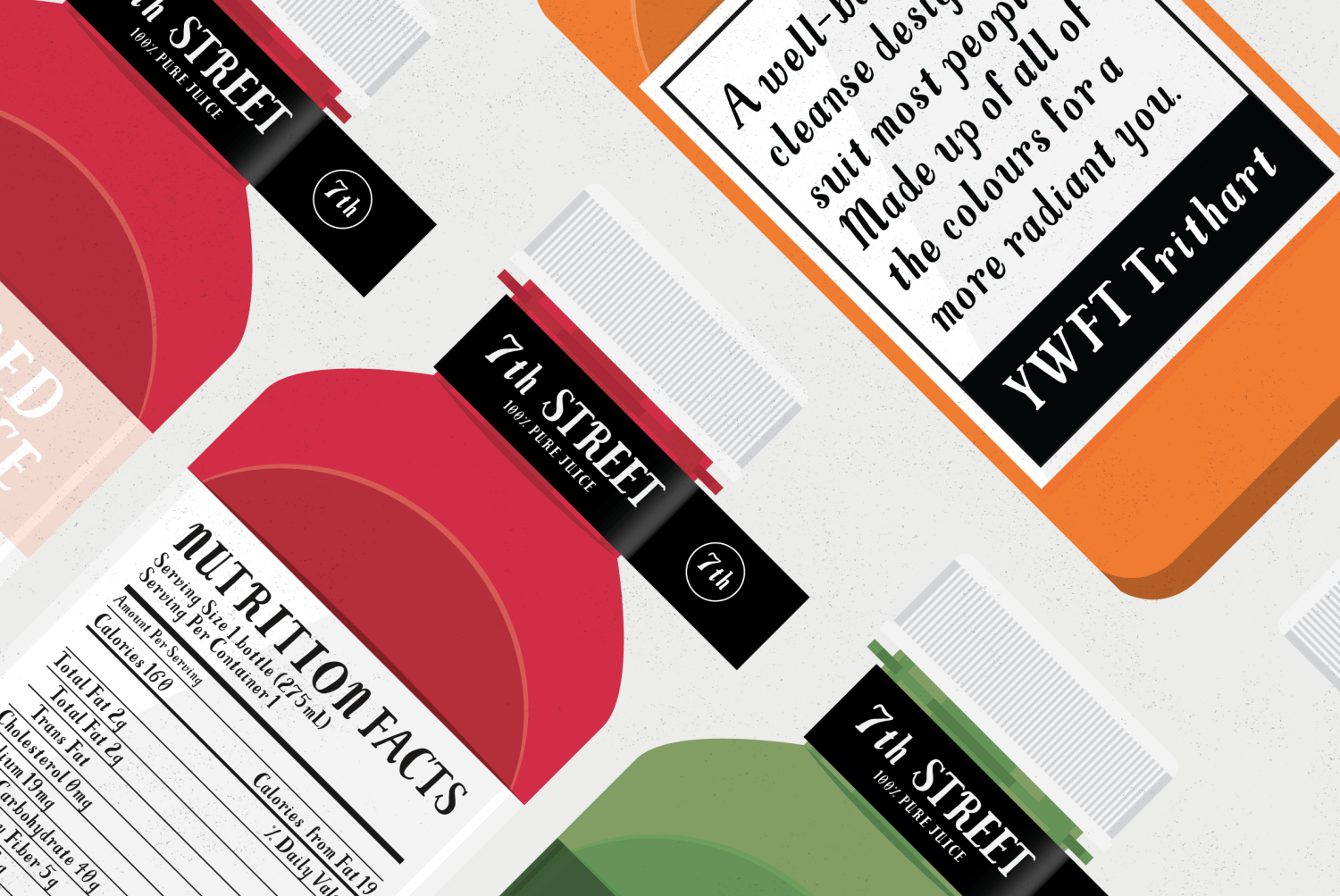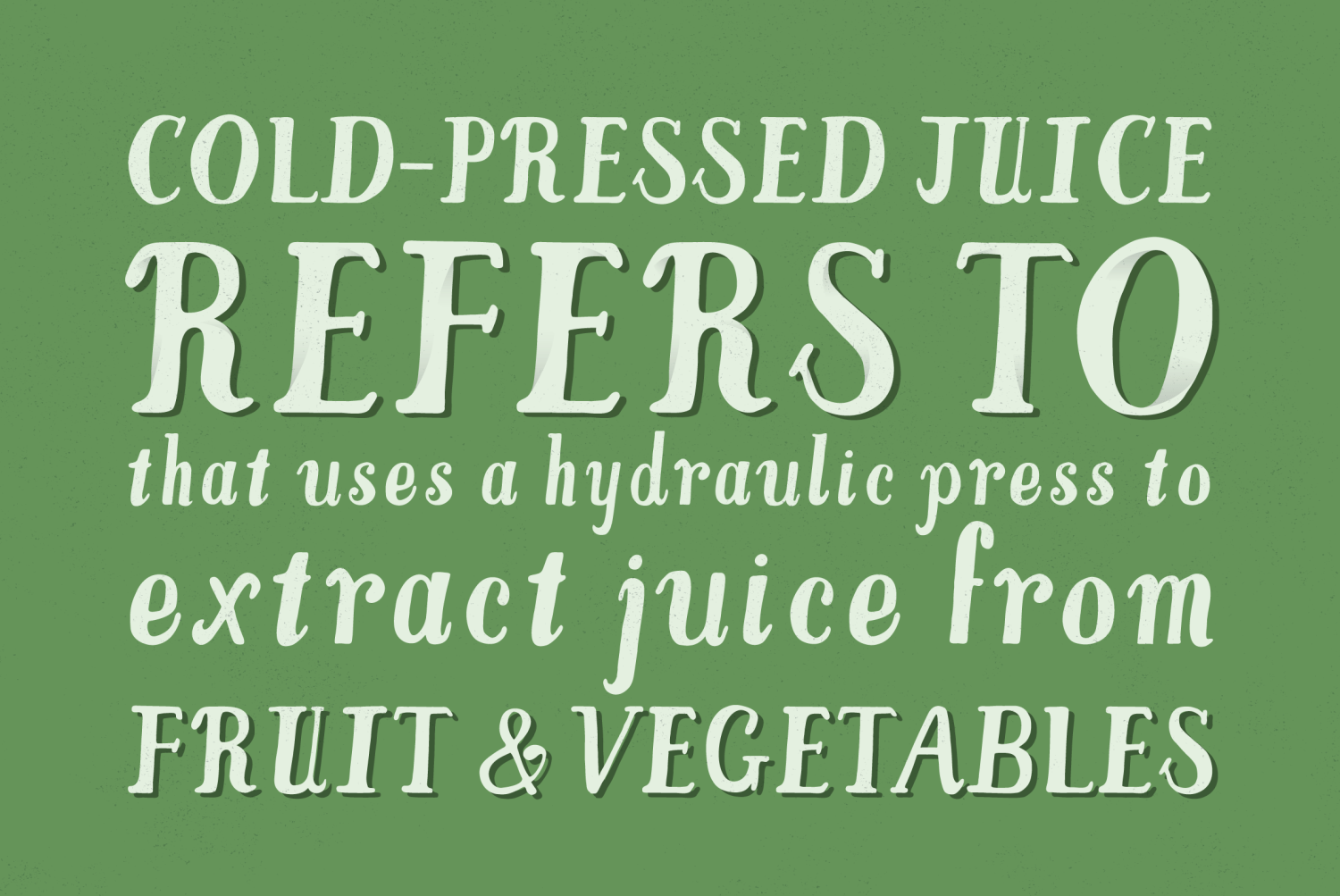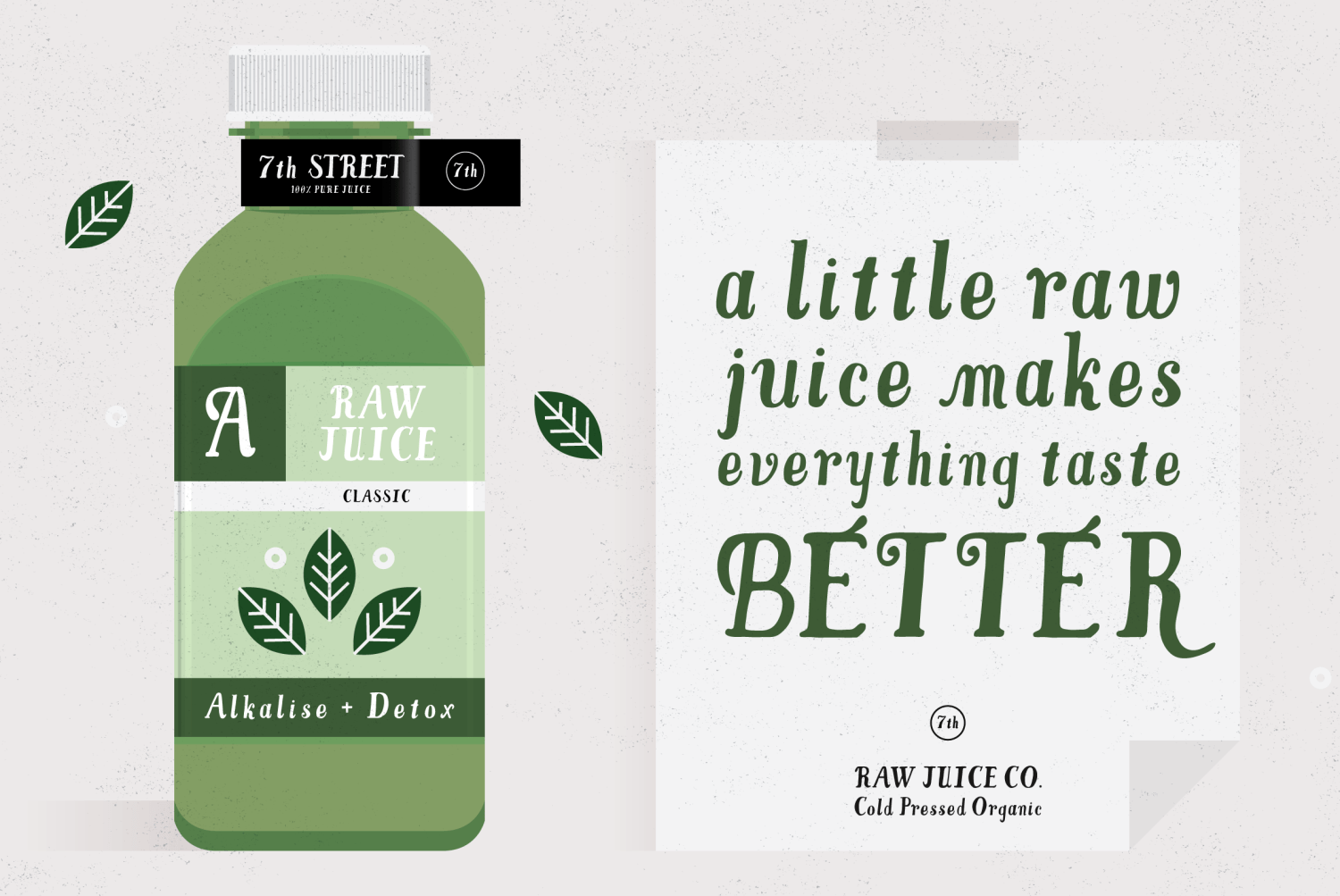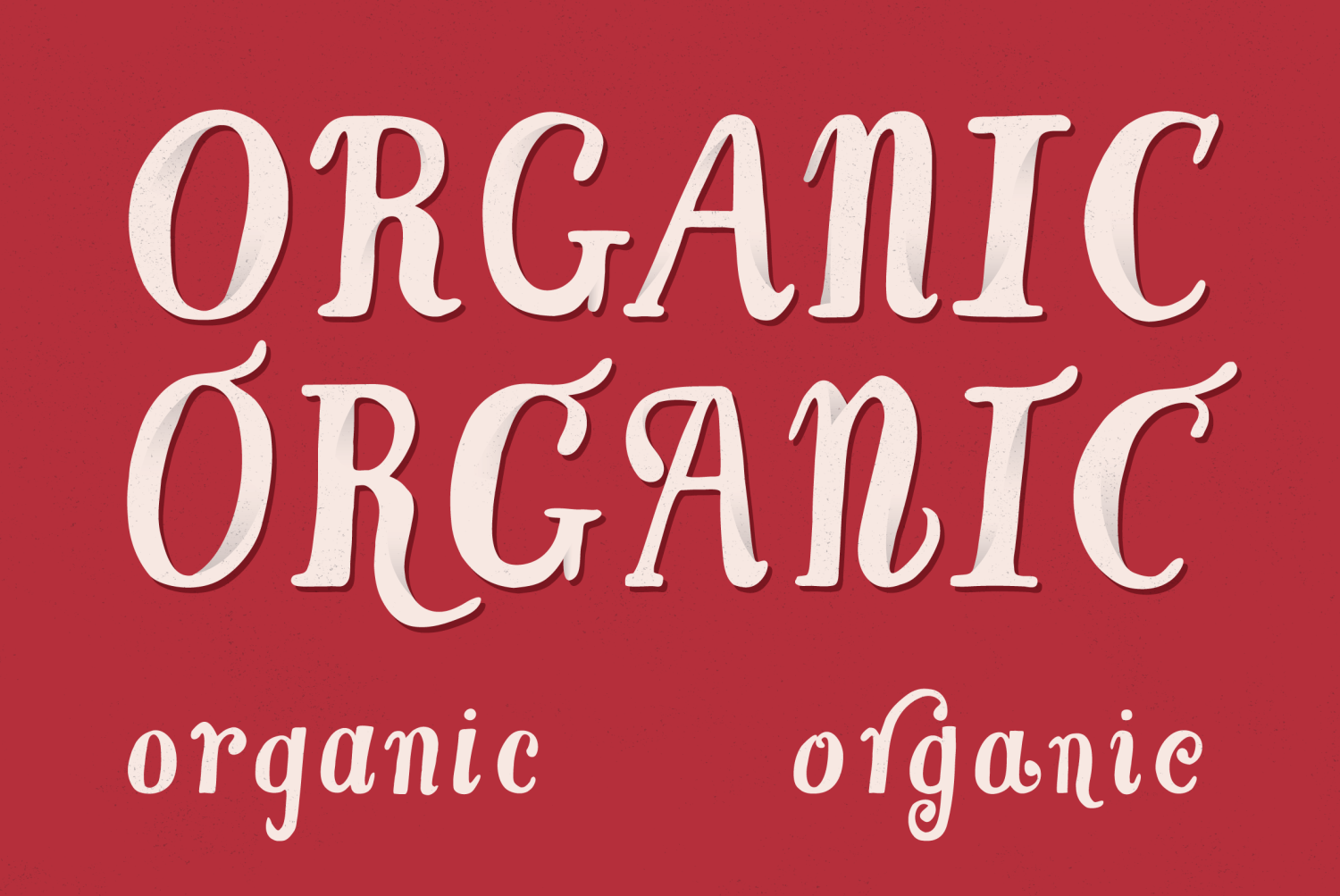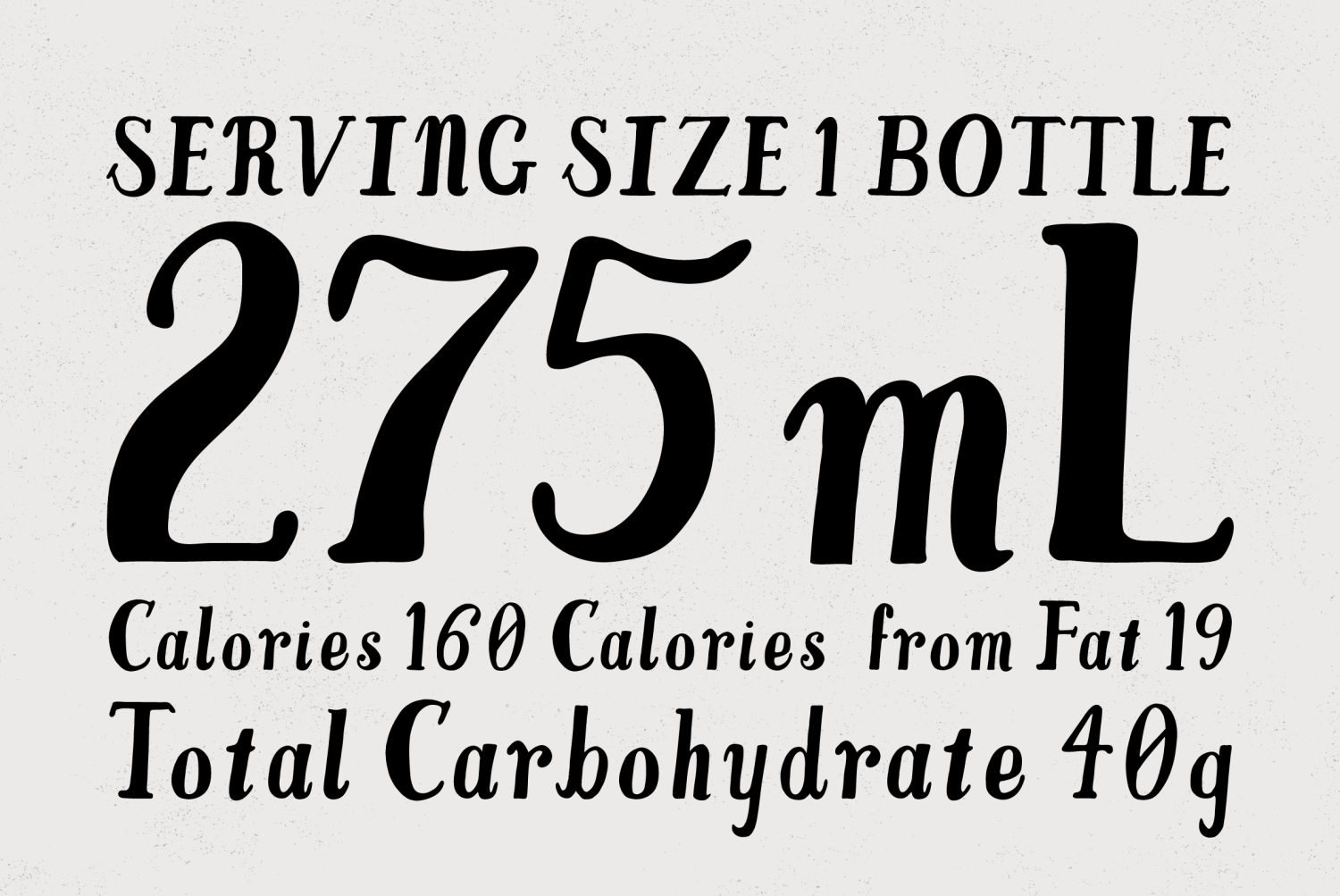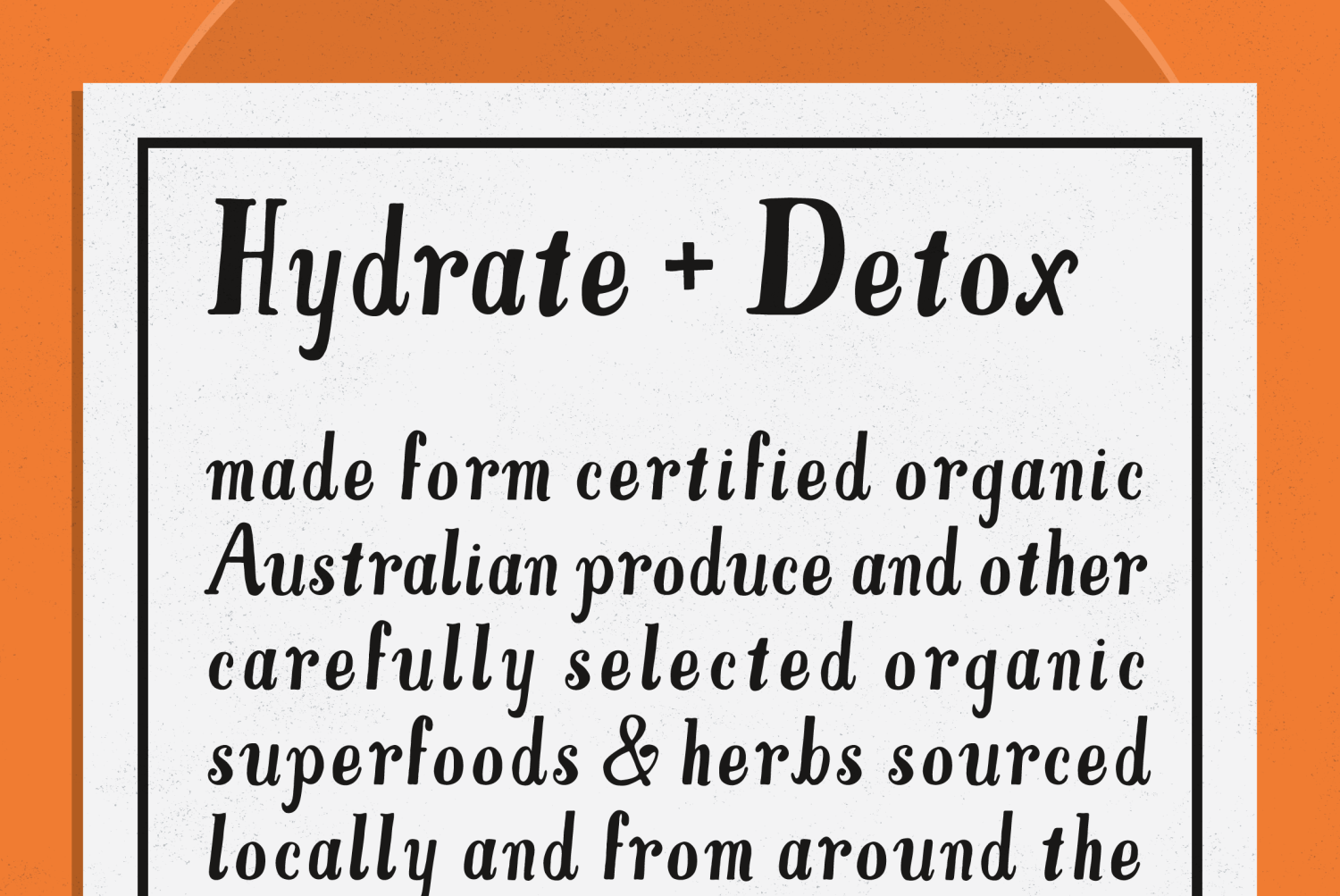
YWFT Trithart
About YWFT Trithart
More true than an arrow launched from an archer\’s bow, YWFT Trithart is a joyful hand drawn opentype font complete with alternative swash characters. YWFT Trithart is great for adding a unique flair to labels, titles, packaging, names, addresses, and…